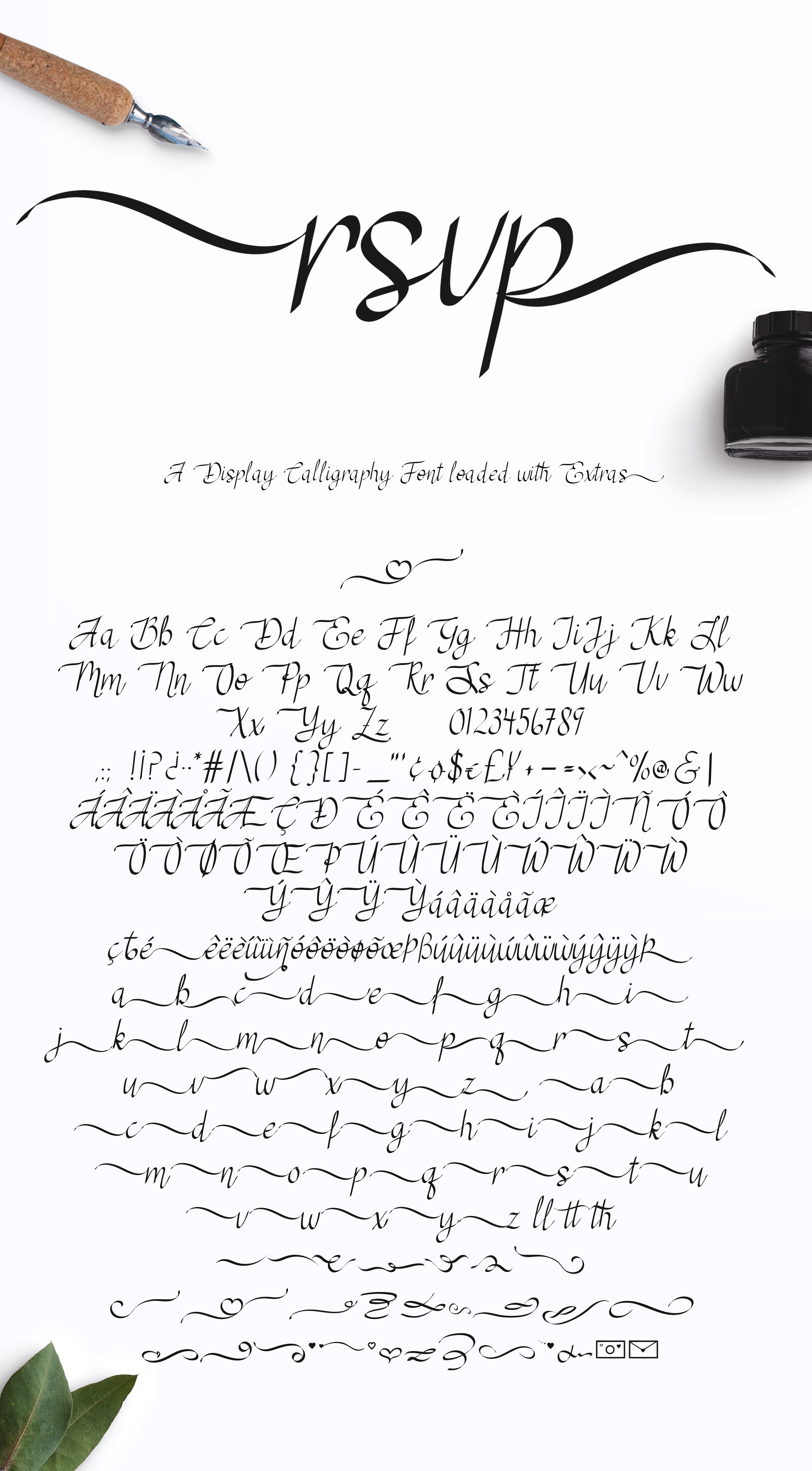
RSVP Display Calligraphy Font +
RSVP Calligraphy fonts is an elegant display font loaded with swatches, ligatures, & stylistic alternatives. Created to go well on invitations, cards, & stationary with just a little bit of bounce and lots of style! The nib at 45 degrees give the traditional calligraphy feel, but it is modernized by new styles of letters and the extra swatches.
- All uppercase letters with a few alternatives
- All lower case letters loaded in regular and with stylistic alternatives
- Extra ligatures
- A secondary swash font with over 50 individual swishes, swirls, and icons.
- Multi- language support with the Western European diacritics.